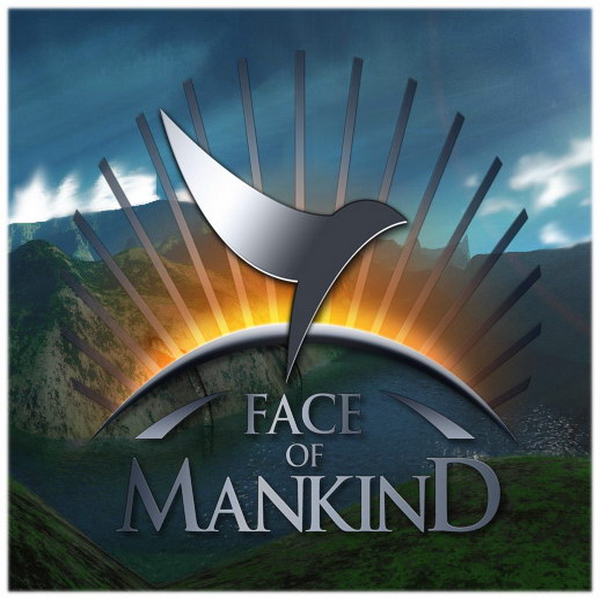
Face of Mankind Font
Fonts in UseFace of Mankind was a massively multiplayer online role-playing game (MMORPG) developed by Duplex Systems and published by Nexeon Technologies. The game was set in a future world where players could choose to align themselves with one of several factions and engage in various activities such as trading, combat, and diplomacy.
The font used for the game logo resembles Trajan Bold, a typeface created by Carol Twombly in 1989. This commercial font draws inspiration from the lettering found on the base of the Trajan column in Rome.